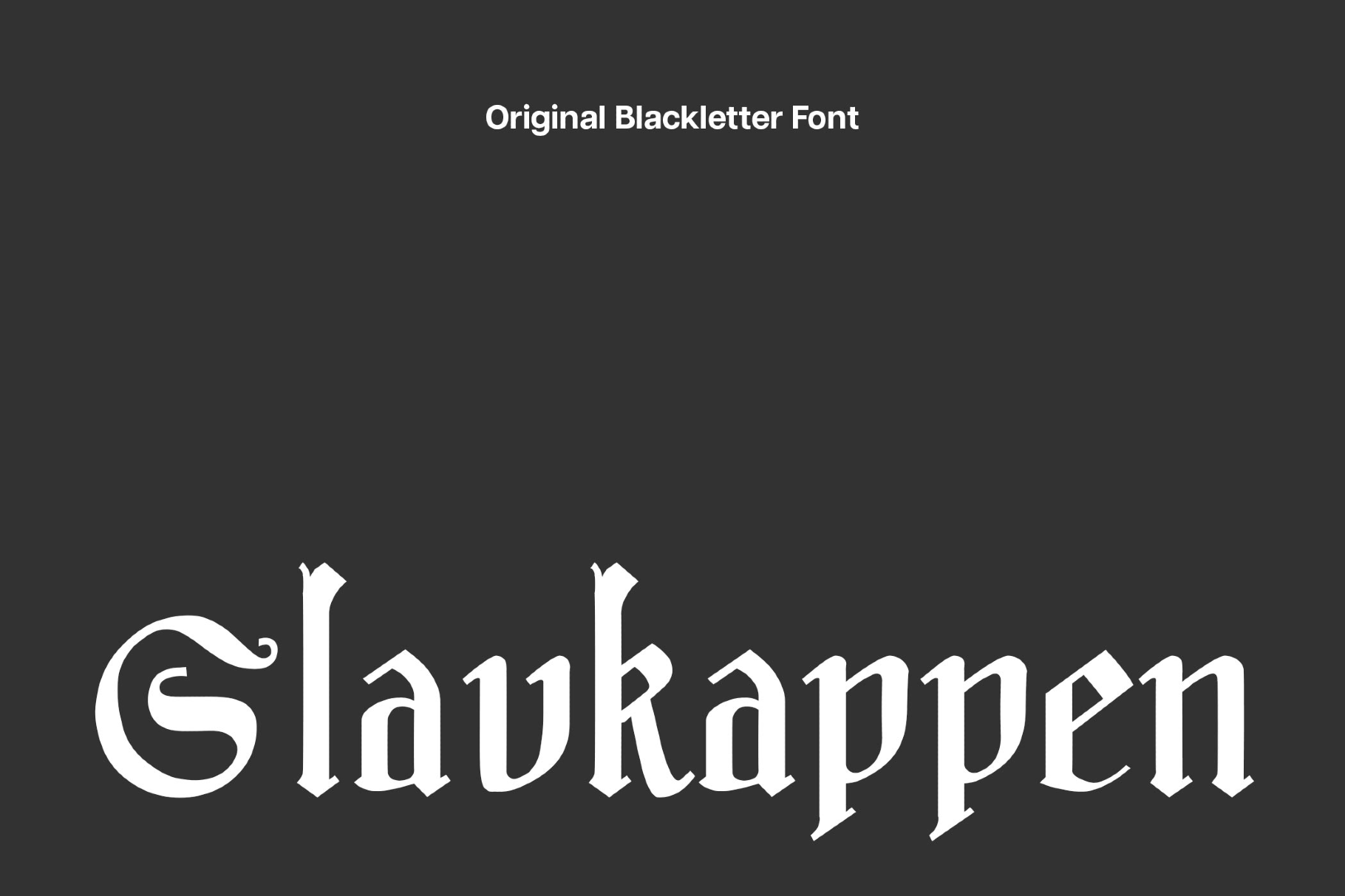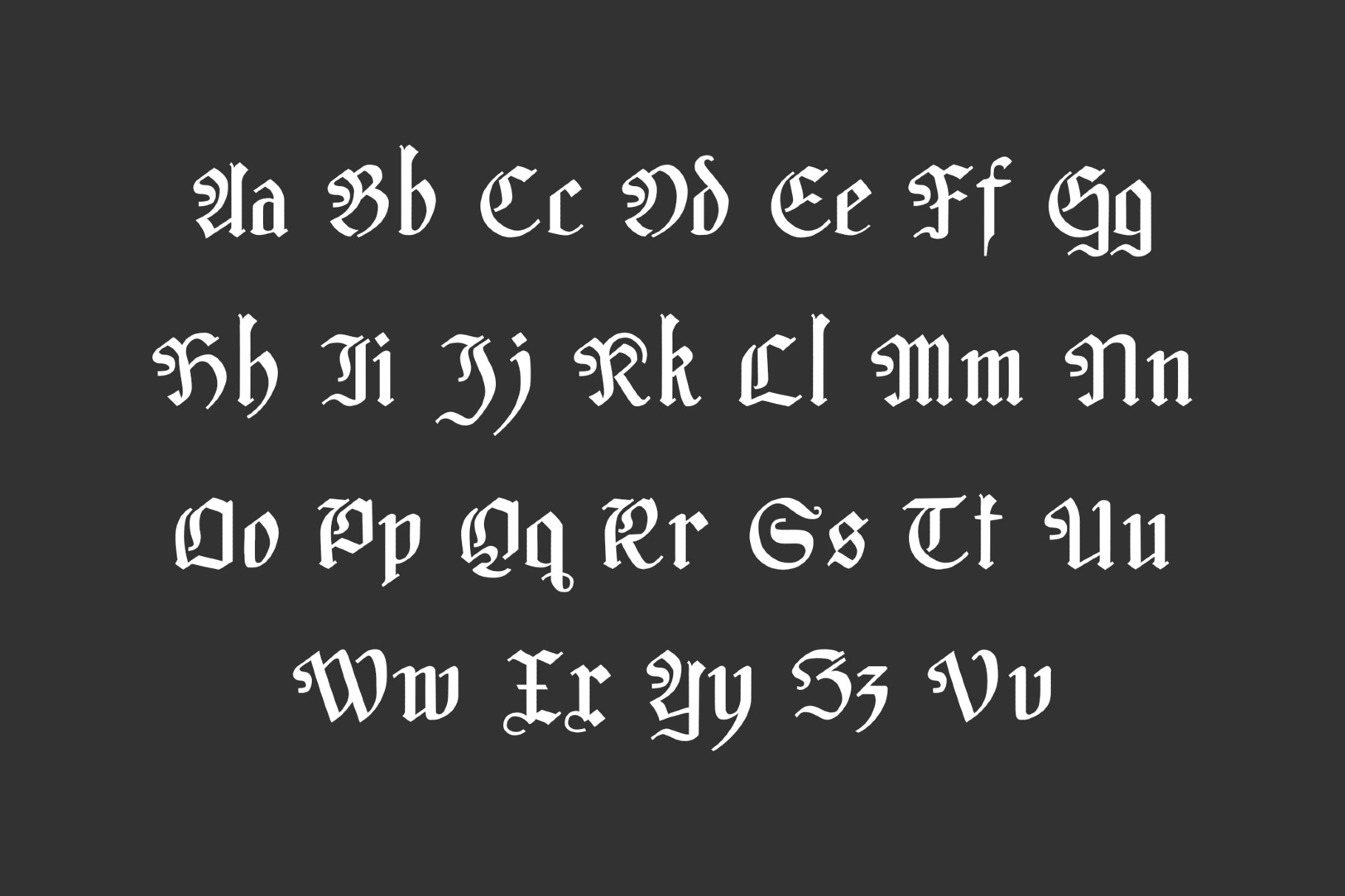
Slavkappen — Old English Font
Slavkappen
This one is an old English–inspired blackletter with hand-painted edges, angular breaks, and tapered spurs. Slavkappen keeps its forms crisp, while soft cap curves build up for a calligrapher’s flourish.
Use it for poster headlines, horror and occult film titles, heavy-music album art, tattoo studio branding, medieval-fair signage, craft-beer and spirits labels, RPG covers and UI, vintage apparel tags, barbershop windows, and book jackets.